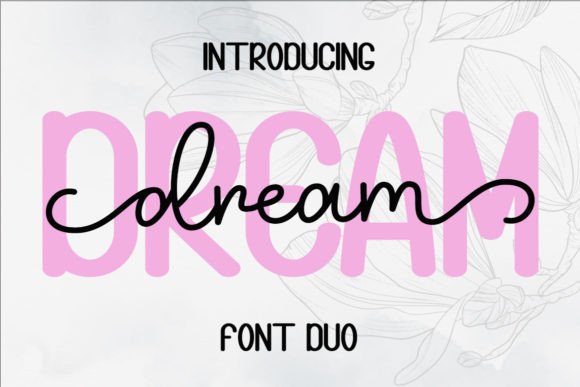
Introducing Dream Duo Font - the ultimate script font designed to elevate your Instagram quotes and captivate your audience. Created by the talented team at Cavalera Creative, this font family is the epitome of perfection with its well-rounded characters and stylish vibe.
Dream Duo Font is more than just a font; it's a source of inspiration for your creative endeavors. Its light and approachable style will infuse your designs with a touch of elegance and sophistication, making them stand out from the crowd. Whether you're designing social media graphics, logos, invitations, or any other project, Dream Duo Font will add that extra flair that you've been looking for.
What sets Dream Duo Font apart is its versatility and ease of use. With PUA encoding, accessing all the glyphs and swashes is a breeze. No more struggling to find the perfect embellishments or decorative elements - Dream Duo Font has it all at your fingertips. Unleash your creativity and explore the endless possibilities this font offers.
Imagine the impact of your Instagram quotes when they're beautifully crafted with Dream Duo Font. Your followers won't be able to resist double-tapping and sharing your posts. Its elegant curves and impeccable flow will create a visual feast for the eyes, leaving a lasting impression on anyone who sees it.